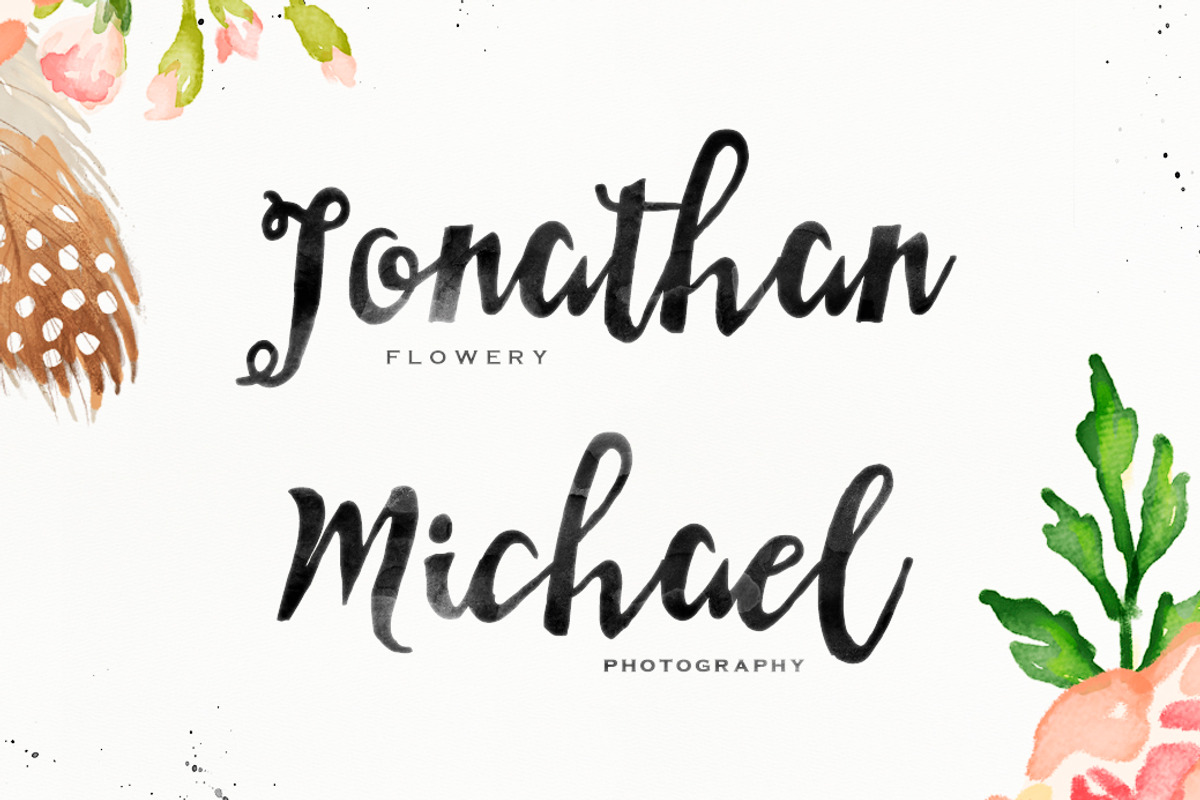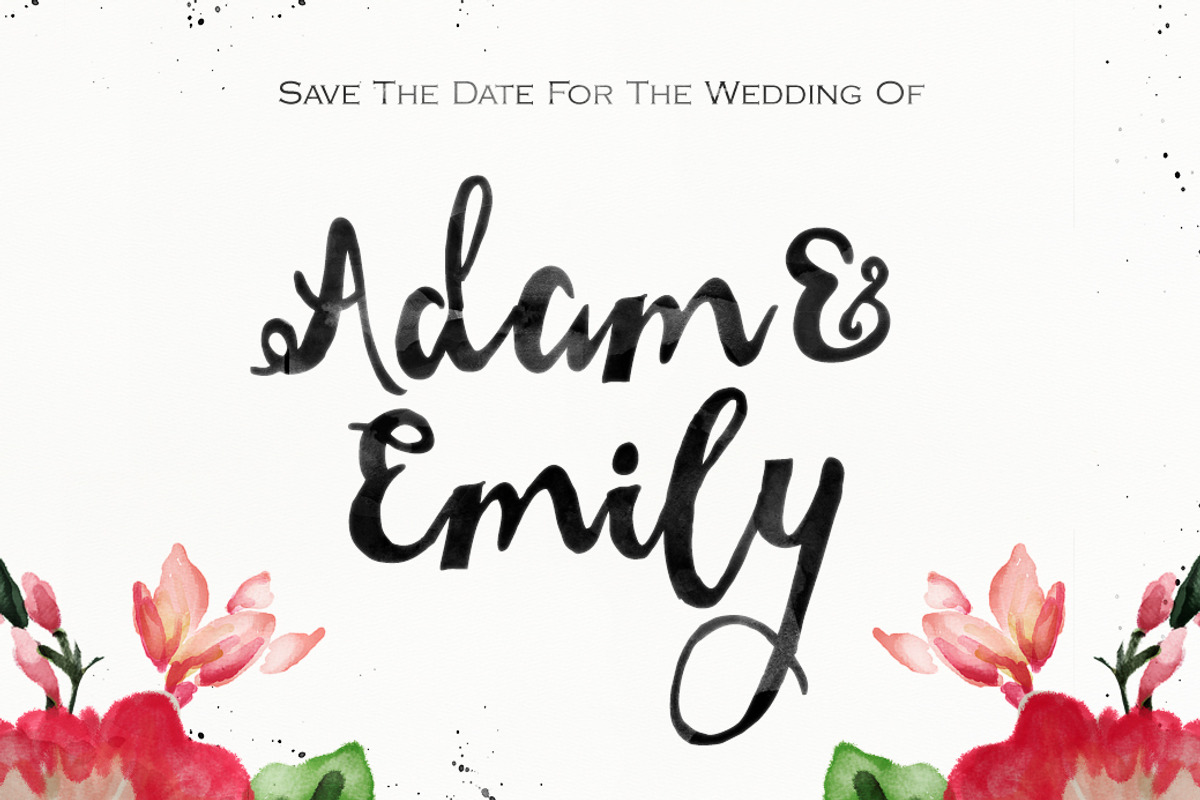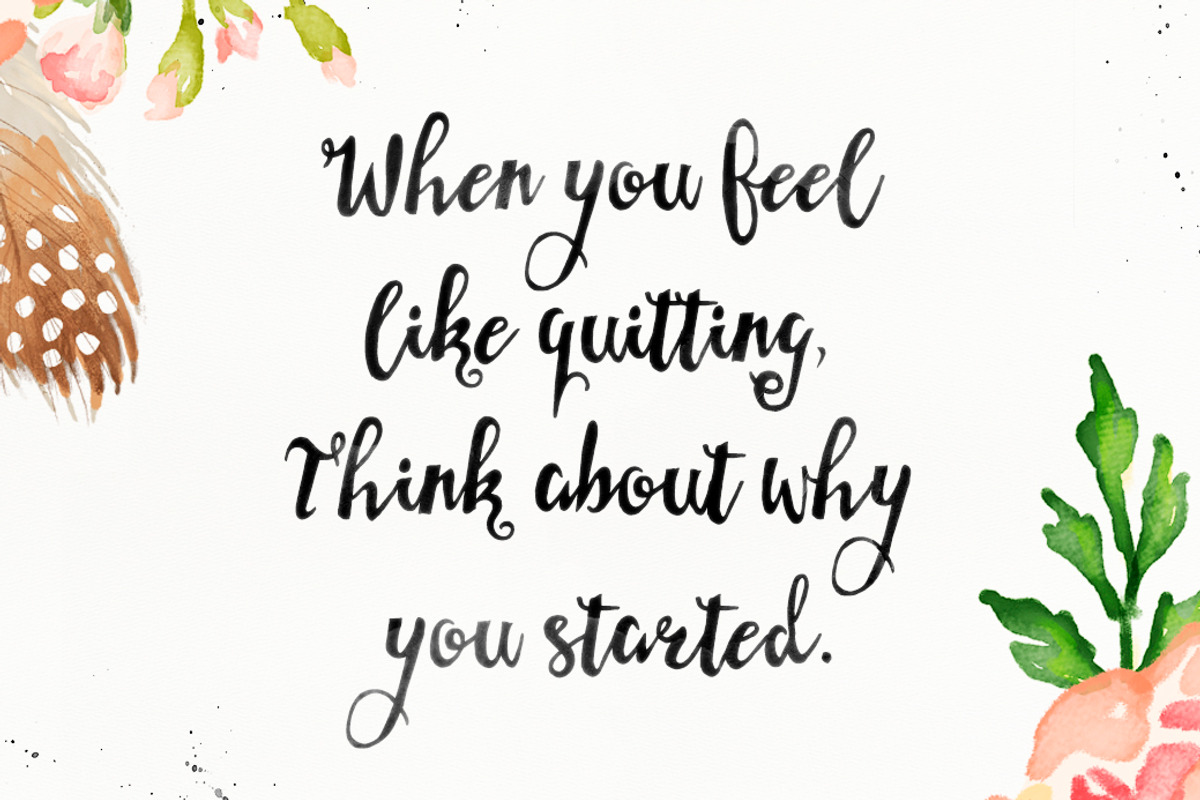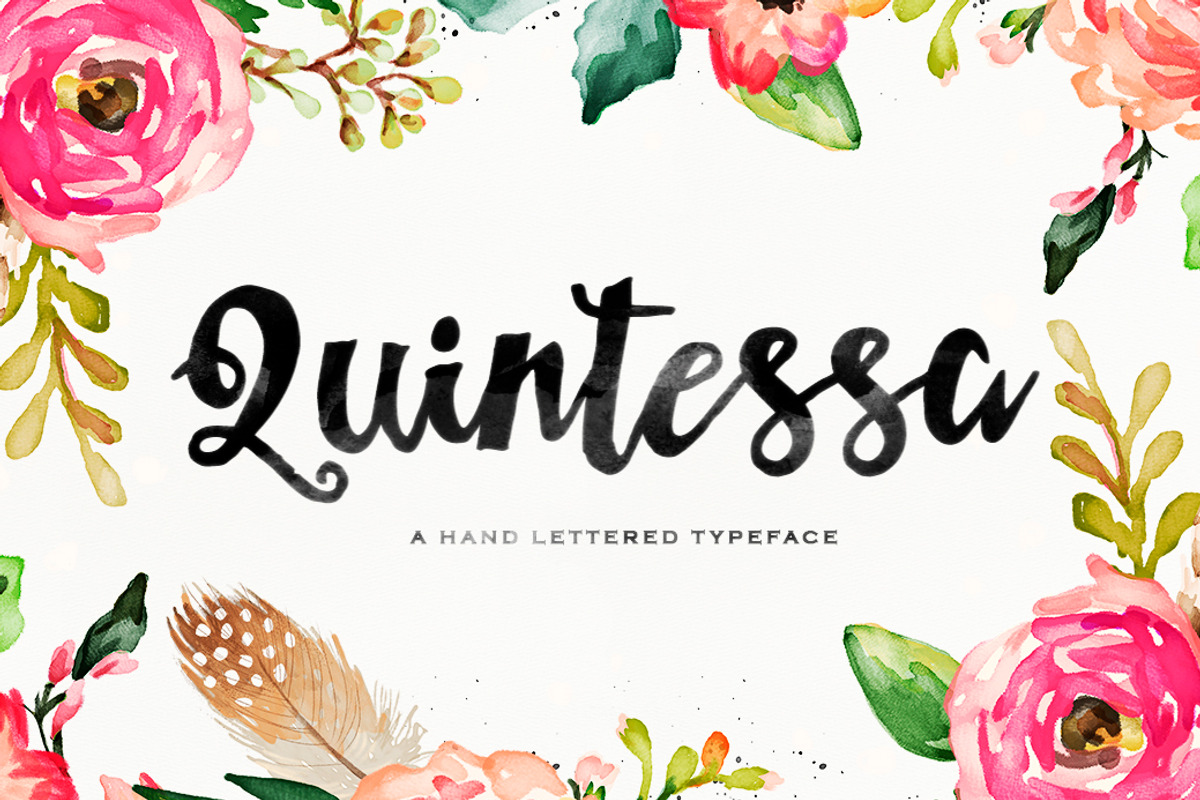
Quintessa is a hand lettered and modern calligraphic font perfect for wedding design projects, invitations, greeting cards, signatures, watermarks, logos, and more.